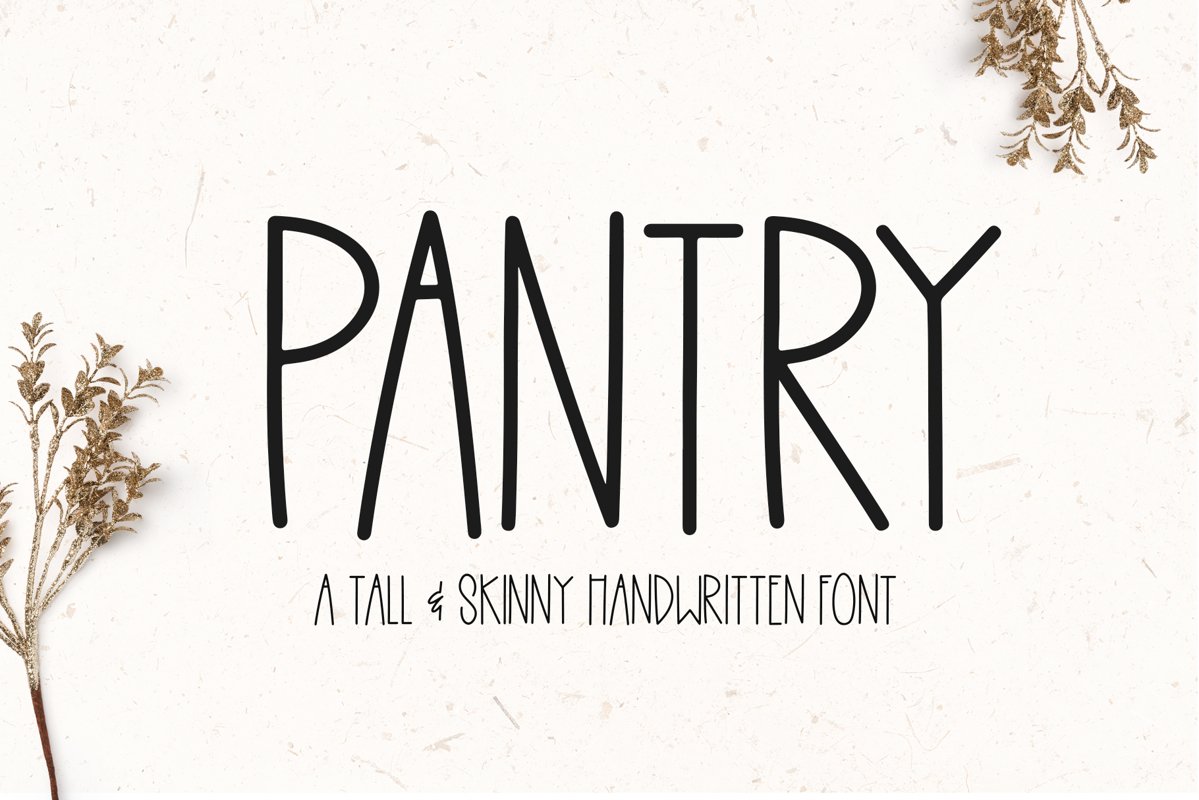
Pantry is a tall handwritten font.
This font is perfect for quotes, shirt designs, websites, branding, children's designs, svg designs, blogs, logos, invitations and more!
Pantry